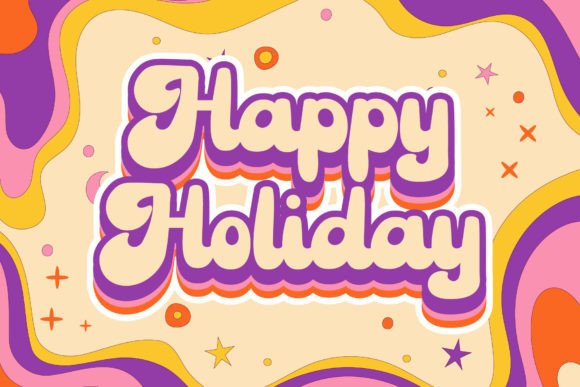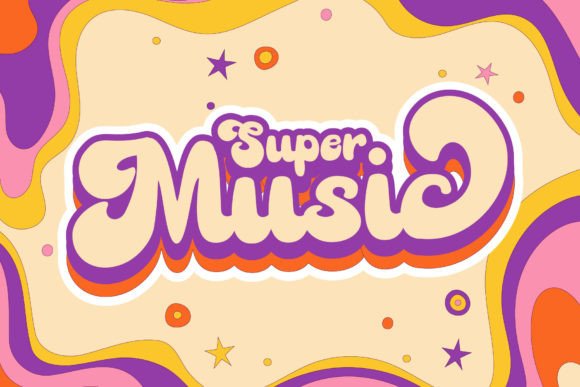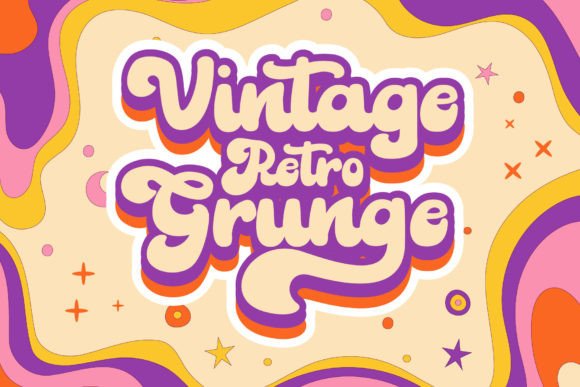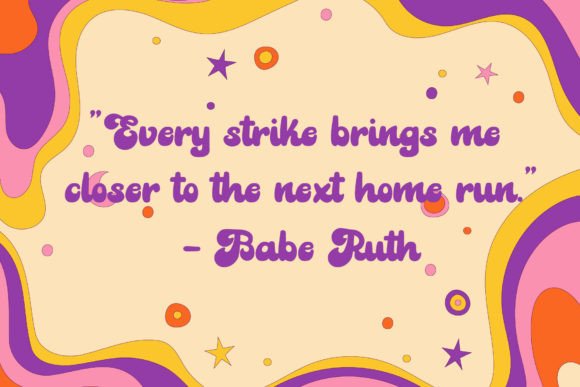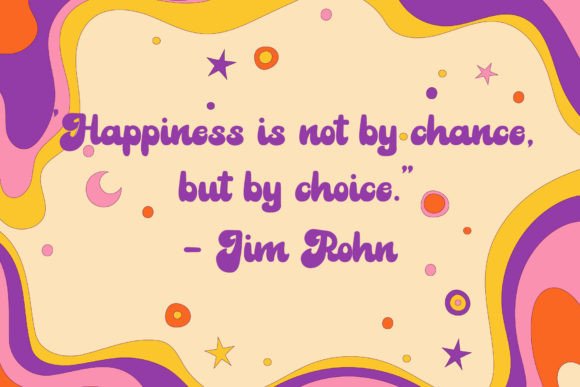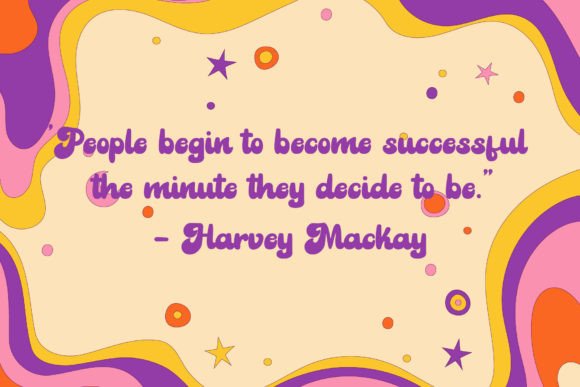
The Funky Font that Brings Retro Charm to Your Designs
Do you remember the thrill of digging through your grandma’s old trunk, discovering a treasure trove of vintage postcards, and feeling inspired by the quirky handwriting on them? That’s exactly the kind of retro charm you can bring to your designs with the Funky Font.
This cool, vintage-style handwritten font is perfect for adding a special touch to any design idea. Whether you’re working on logos, branding, invitations, or social media posts, Funky Font can elevate your creations to the next level. Its unique style and PUA encoding make it a valuable asset for designers, allowing you to access all glyphs and swashes with ease.
- Character Set: This font features a vast character set, including uppercase and lowercase letters, numerals, punctuation marks, and a range of special characters, making it suitable for a wide range of applications.
- Unique Characteristics: Funky Font is known for its distinctive, hand-drawn style and playful flair, adding a touch of personality to any text-based design.
Funky Font Review
Overall, I think Funky Font is a fun and playful typeface, but it’s not perfect. Here’s what I think:
- Funky Font is incredibly expressive and adds a lot of personality to text. It’s perfect for headings, titles, and any other text where you want to make a statement.
- The font is well-suited for digital use, with clear and crisp lines that render well on screens.
- It’s easy to customize and pair with other fonts, making it a versatile choice for designers.
- Funky Font can be overwhelming if used extensively. It’s best to use it sparingly to avoid visual fatigue.
- The font may not be suitable for body text or long paragraphs, as it can be difficult to read in large quantities.
- Some users may find the font too playful or childish, which could be a drawback for certain designs.
Overall, I think Funky Font is a great choice for designers who want to add some personality to their designs. Just be mindful of its limitations and use it thoughtfully to get the best results.
For best results, use Funky Font in bold, colorful, and playful combinations to add a unique touch to your designs. Common use cases include:
– Flyers and brochures
– Event invitations
– Branding and logo design
Alternatives to “Funky Font” for Designers
Funky Font is a popular font known for its playful and casual vibe. However, it may not be suitable for all design projects. Here are some alternatives to consider:
Great Vibes is a modern script font that exudes a sense of sophistication and elegance. It’s perfect for use in headings, titles, and other text elements where a touch of sophistication is desired. Compared to Funky Font, Great Vibes is more refined and polished, making it a great choice for formal and professional designs.
Pacifico is a beautiful script font that evokes a sense of relaxation and tranquility. It’s ideal for use in designs that require a calming and soothing atmosphere, such as travel brochures, spa websites, and wellness magazines. While Funky Font is more playful, Pacifico is more laid-back and easy-going, making it a great alternative for designs that need a more relaxed tone.
Carolyna Pro is a modern sans-serif font that’s perfect for use in designs that require a clean and minimalist look. It’s ideal for use in headings, titles, and other text elements where a touch of sophistication and elegance is desired. Compared to Funky Font, Carolyna Pro is more modern and sleek, making it a great choice for designs that need a contemporary feel.